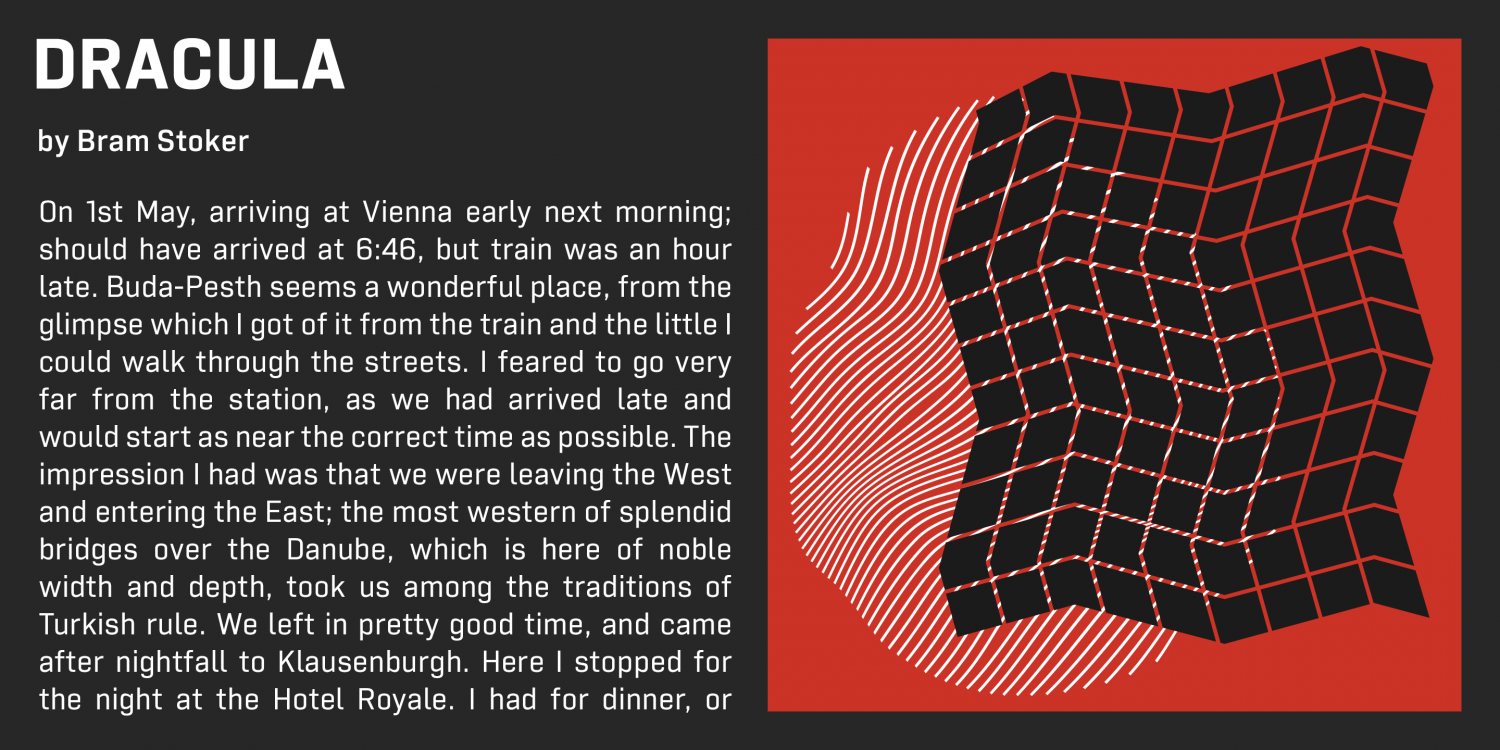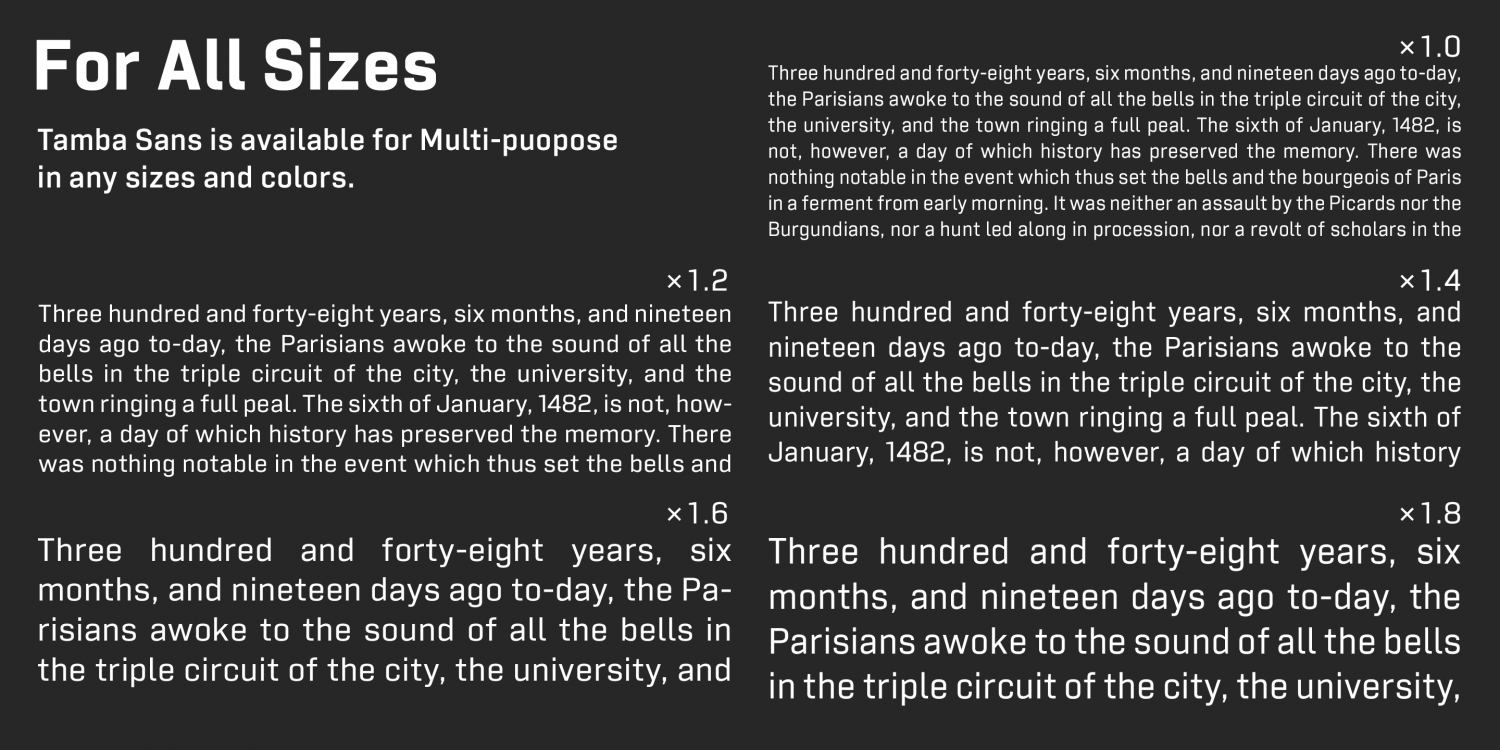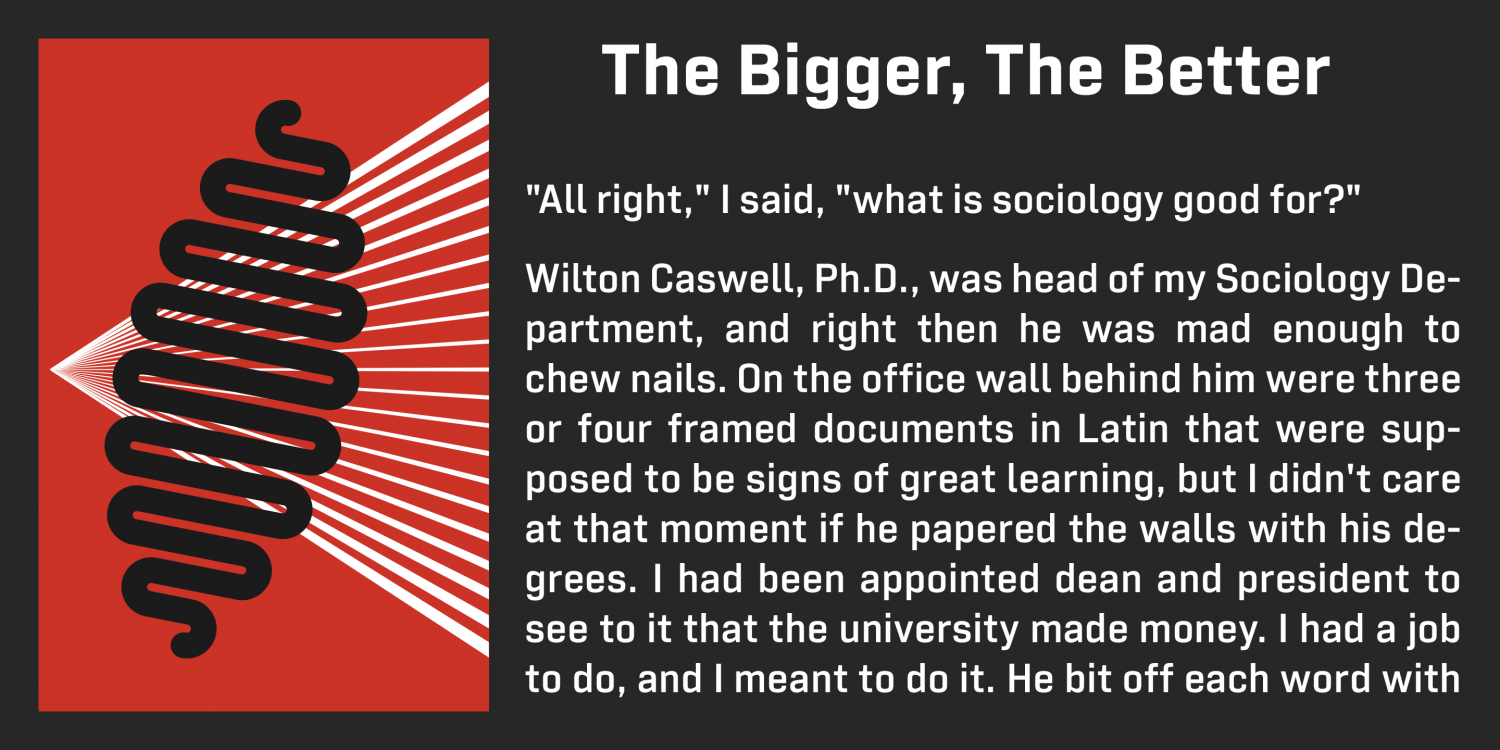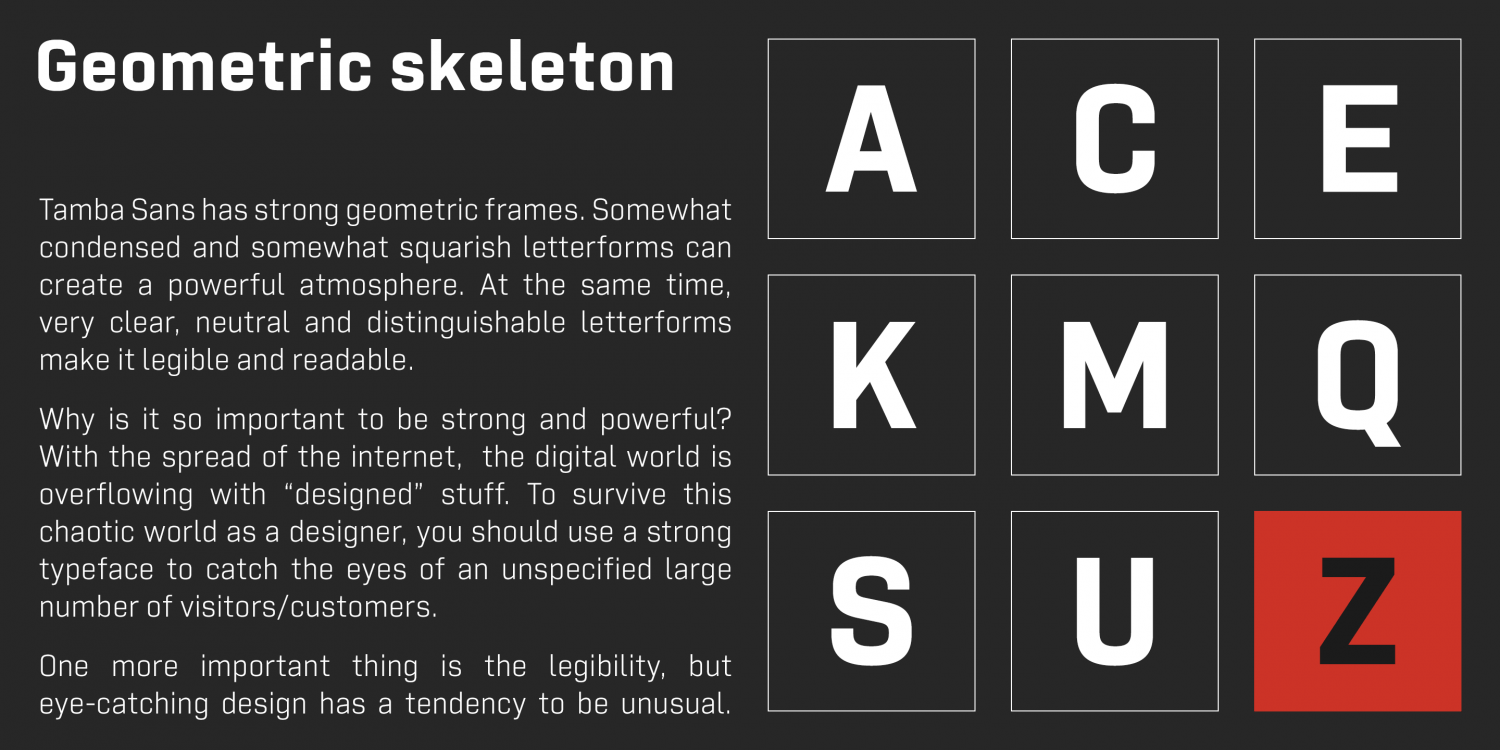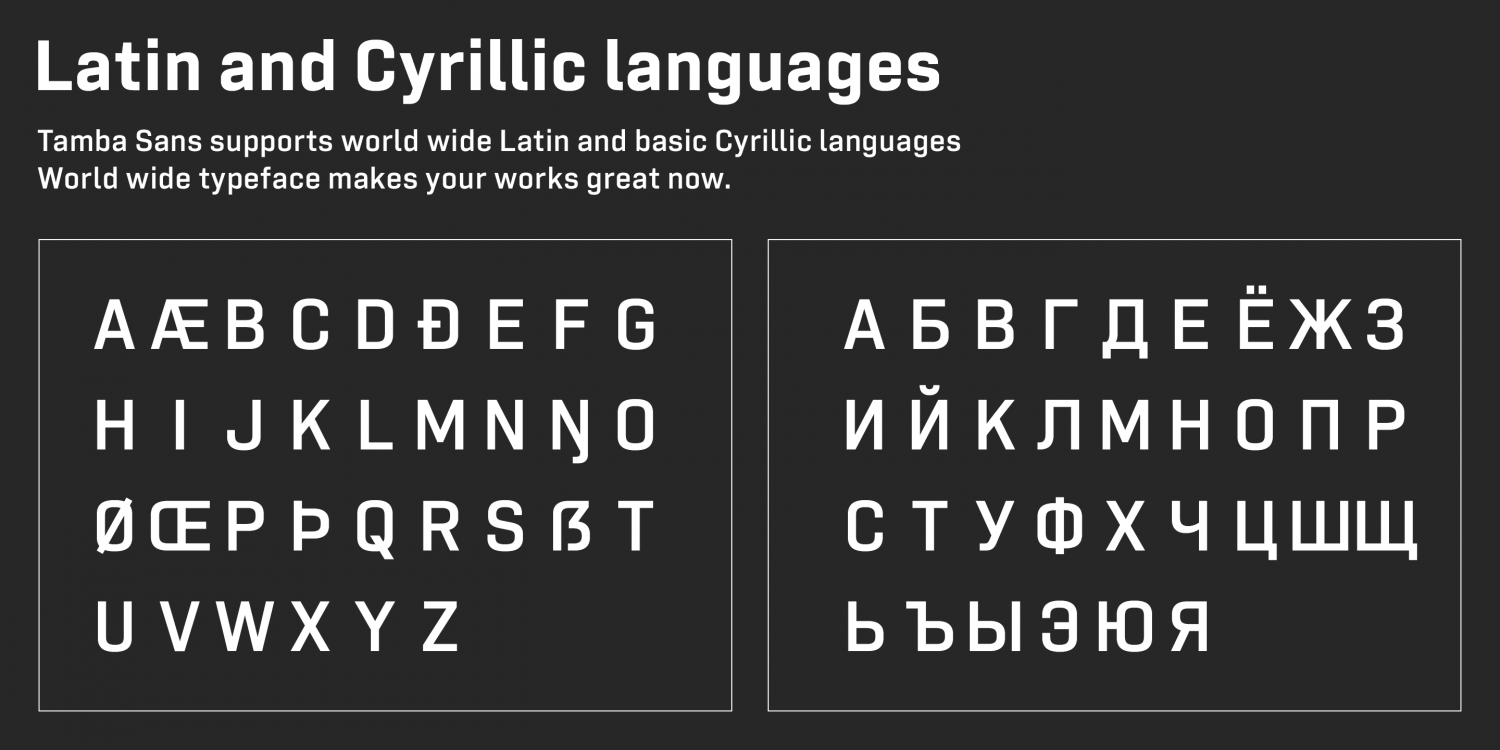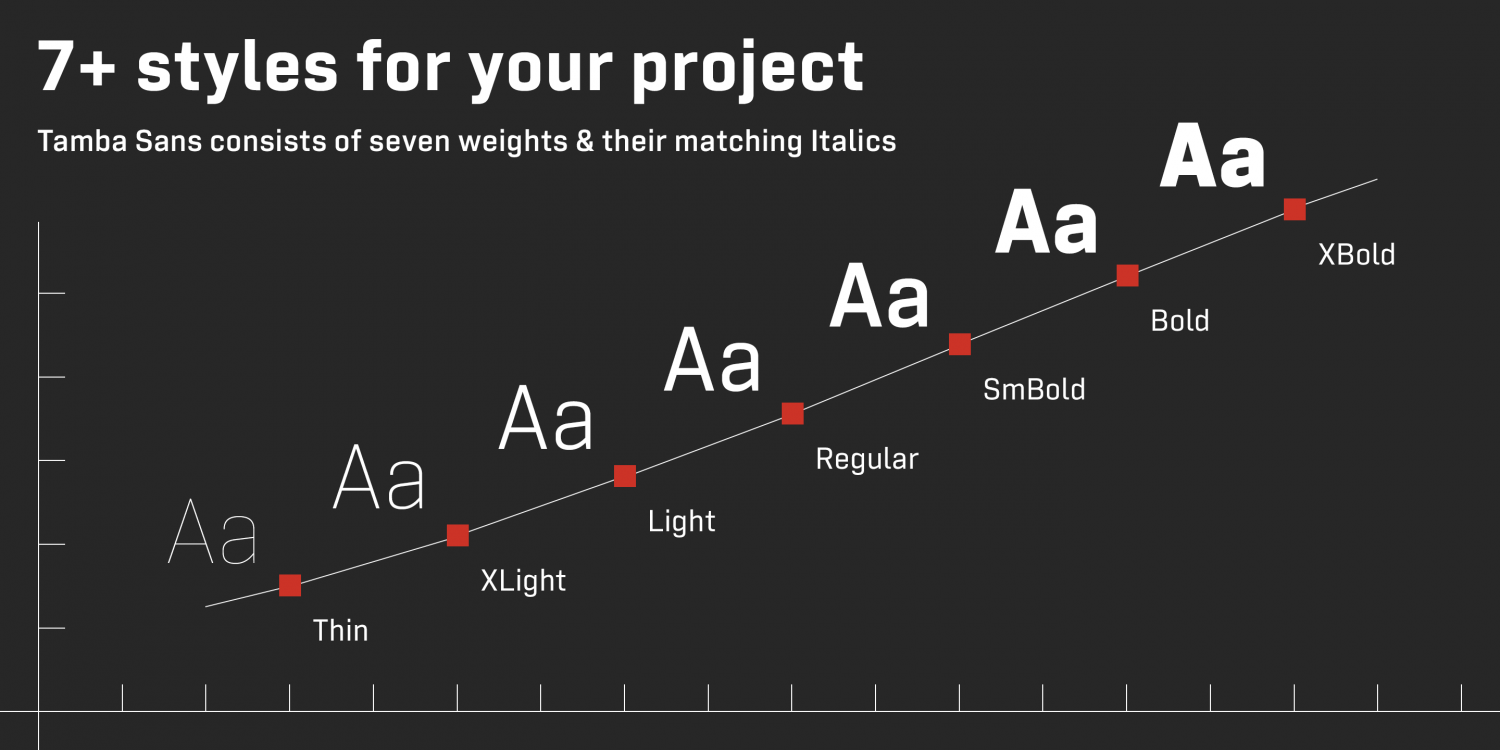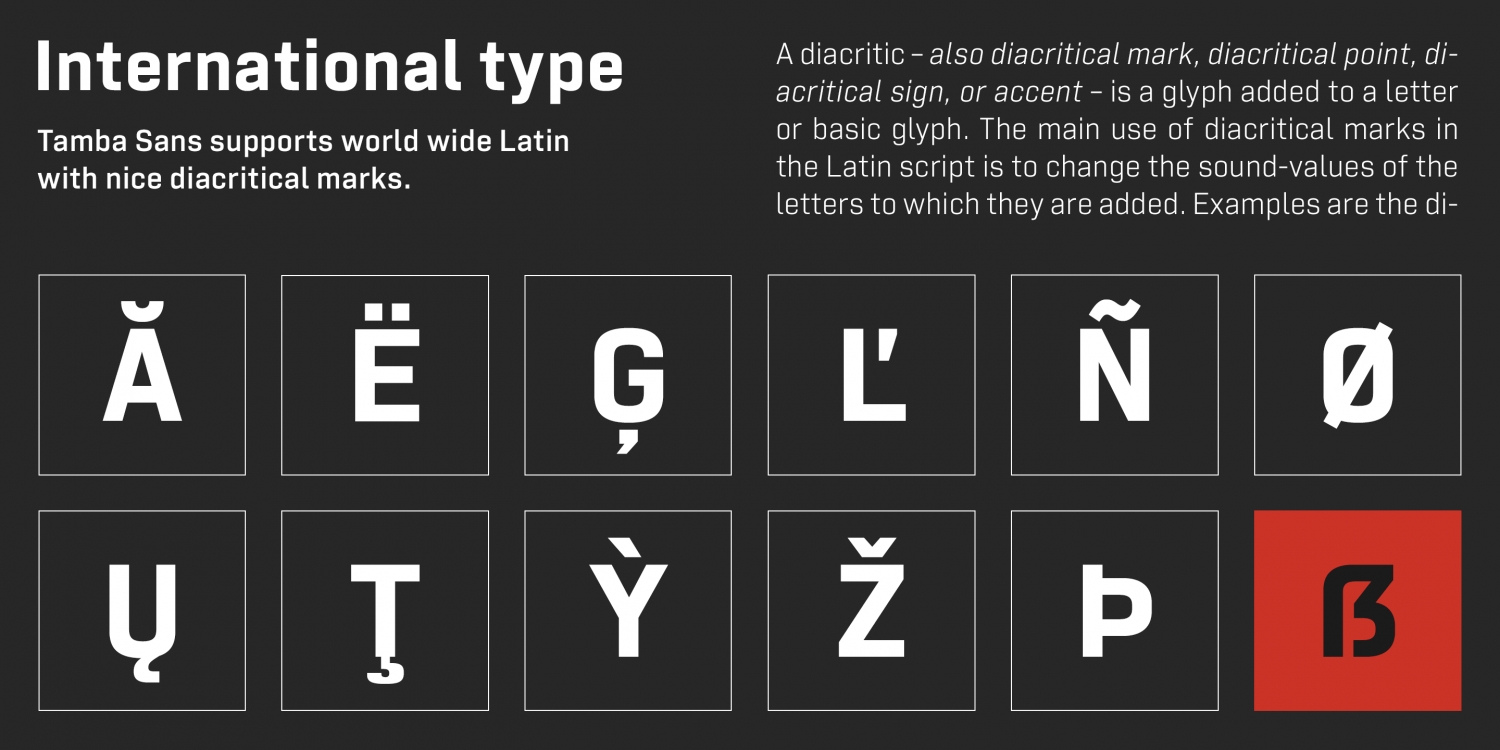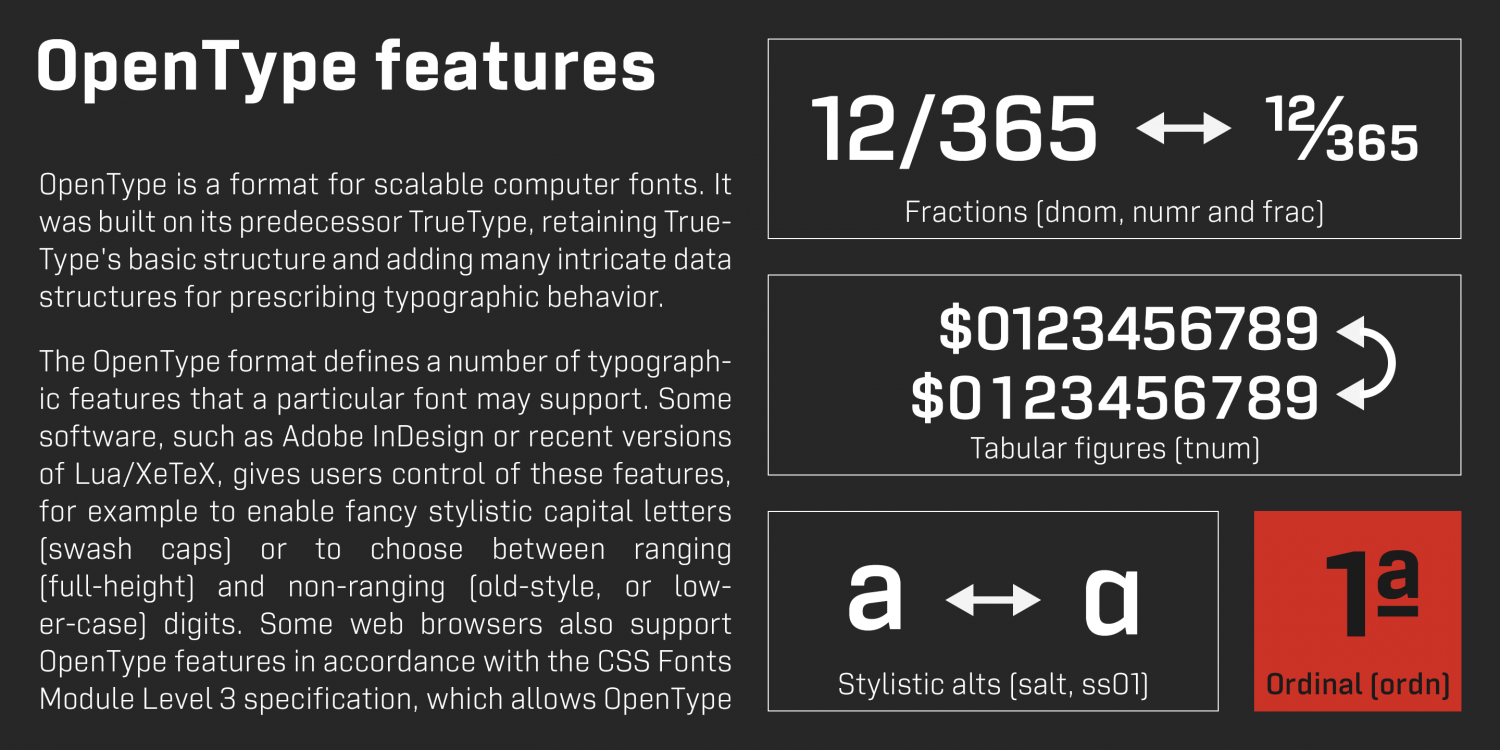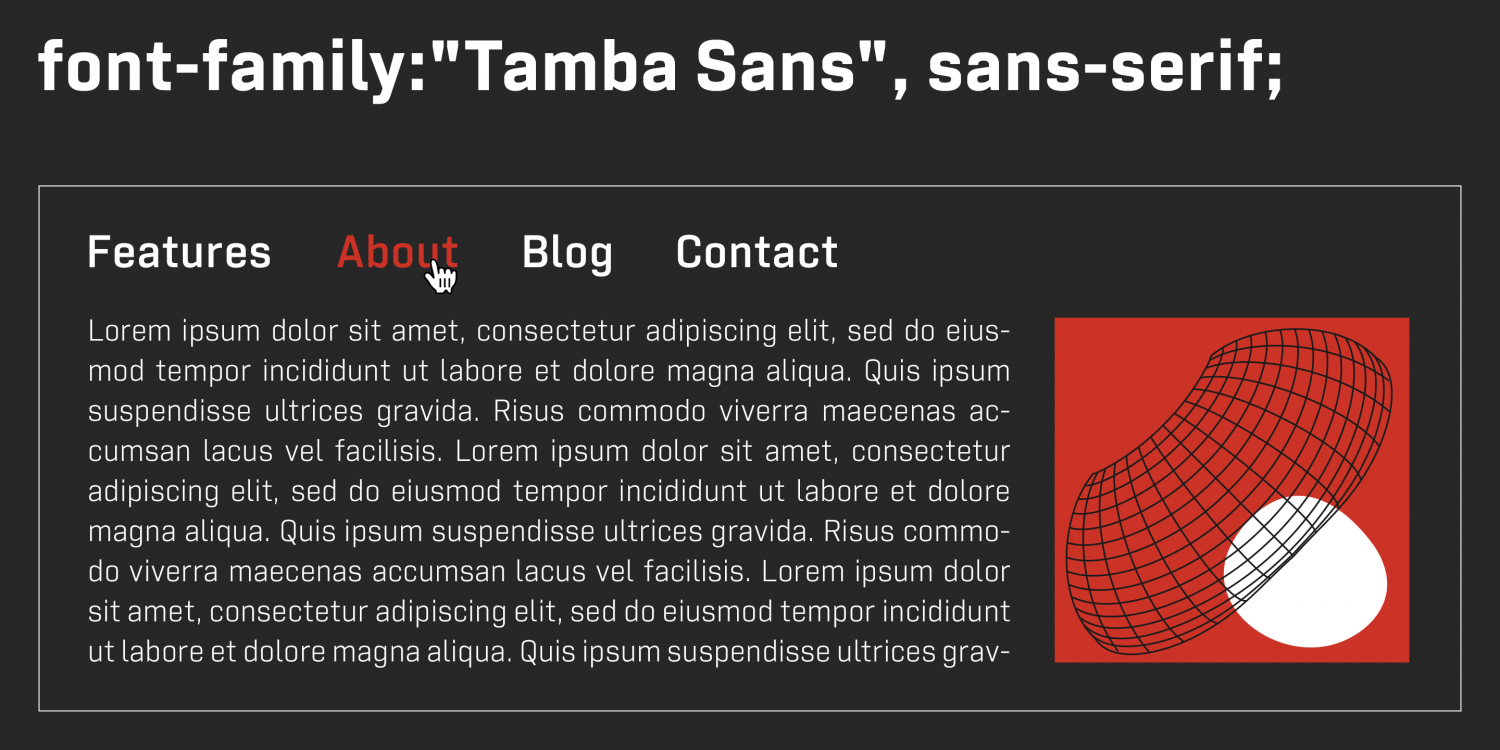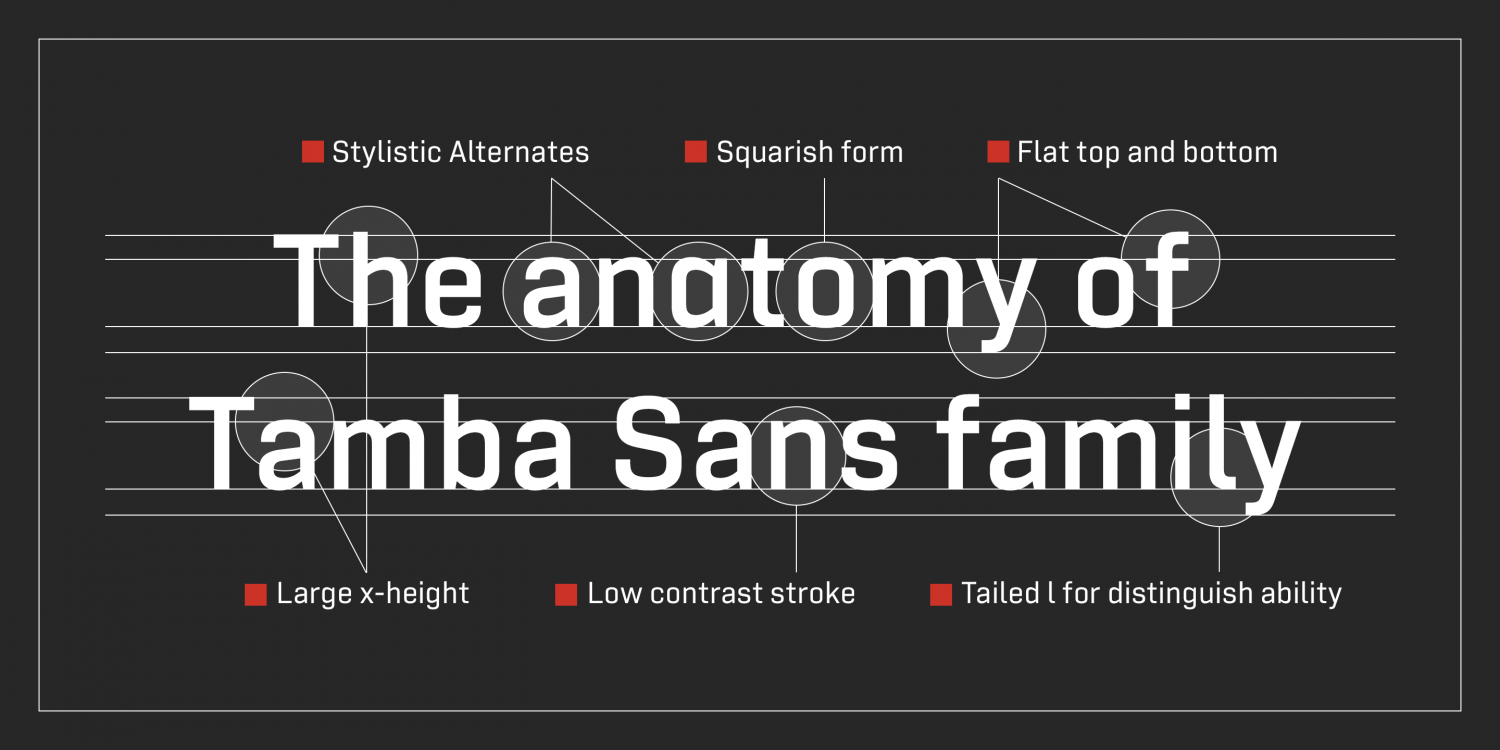
Tamba Sans
Font Family by Dharma Type
Tamba Sans is a bold, geometric sans-serif with a distinctly condensed and slightly squarish structure. Its strong letterforms create a commanding visual presence, while maintaining excellent clarity, neutrality, and legibility.
In today’s digital world—saturated with carefully crafted visuals—designers face the challenge of standing out in a sea of content. To capture attention from an undefined, global audience, a strong, powerful typeface is essential. That’s exactly where Tamba Sans shines.
At the same time, legibility remains critical. But bold, attention-grabbing type often comes at the cost of clarity. Tamba Sans bridges this gap, striking a perfect balance between eye-catching style and functional readability.
The type family includes 7 weights with matching italics, making it versatile for a wide range of applications—from digital interfaces and branding to editorial and signage.
Tamba Sans supports a broad array of international Latin and basic Cyrillic scripts, including Basic Latin, Western, Central, and South-Eastern European languages. It also covers key encodings such as Mac Roman, Windows-1252, and Adobe Latin 1–3, ensuring compatibility across global platforms and media.